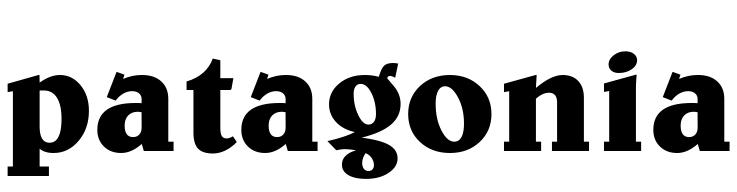
Patagonia Font
AdventurePatagonia is a clothing and outdoor gear brand that was founded in 1973 by Yvon Chouinard. It offers high-quality clothing, gear, and equipment for activities such as climbing, surfing, skiing, and hiking.
The Patagonia logo is likely written in Belwe Bold. George Belwe created the commercial typeface Belwe for Schelter & Giesecke in Dresden. It comes in five weights: Light, Medium, Bold, and Condensed. More details about it can be found here.